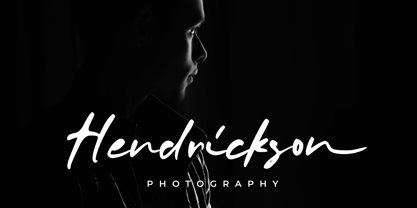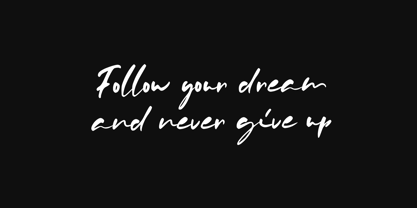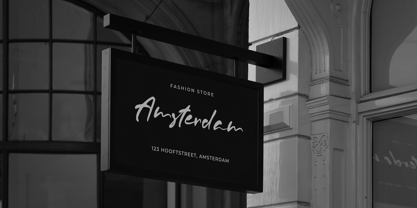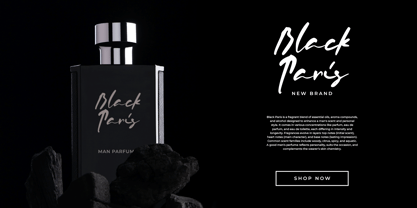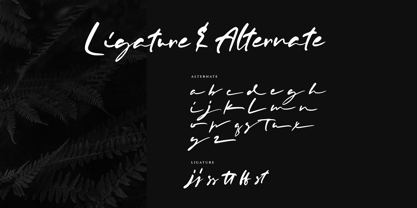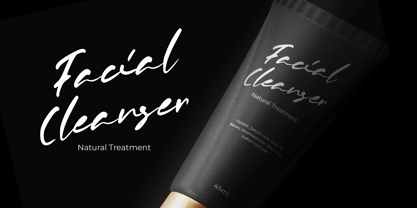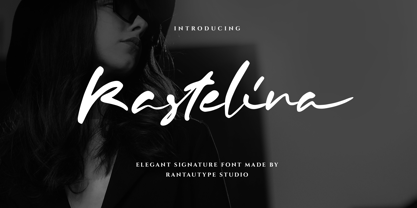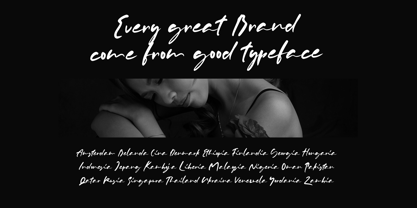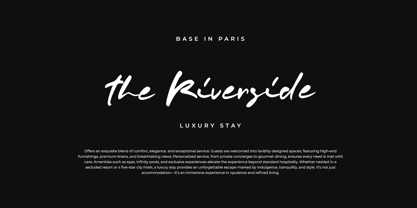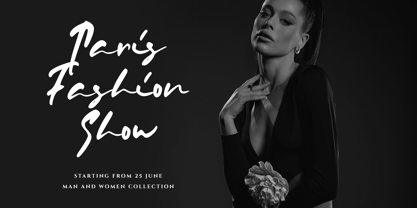
Rastelina
The Rastelina Font Family was designed by Yudi Pratama Chandra and published by RantauType. Rastelina contains 1 styles. More about this family
Rastelina is a elegant signature font with bold and authentic hand lettering combines sophistication with personal flair. It features fluid, cursive strokes that mimic natural handwriting, enhanced by confident, bold lines that add presence and impact. Rastelina is a perfectly choice for any creative endeavor, creating, modern, lifestyle design such as logotype, title, cover, branding, invitations, wedding designs, display and magazine, social media posts, advertisements, printed quotes, product packaging, corporate brand, product designs, labels, photography, watermarks, special events and any other project with high-end touch.
• Standart Glyphs
• Numberial and Functional
• Ligature and alternate
Fonts include multilingual support for: Afrikaans, Albanian, Basque, Bemba, Bena, Breton, Catalan, Chiga, Cornish, Danish, Dutch, English, Estonian, Filipino, Finnish, French, Galician, German, Icelandic, Indonesian, Irish, Italian, Kinyarwanda, Luxembourgish, North, Norwegian, Portuguese, Romansh, Rombo, Rundi, Scottish, Gaelic, Sena, Shambala, Shona, Soga, Somali, Spanish, Swahili, Swedish, Swiss, German.